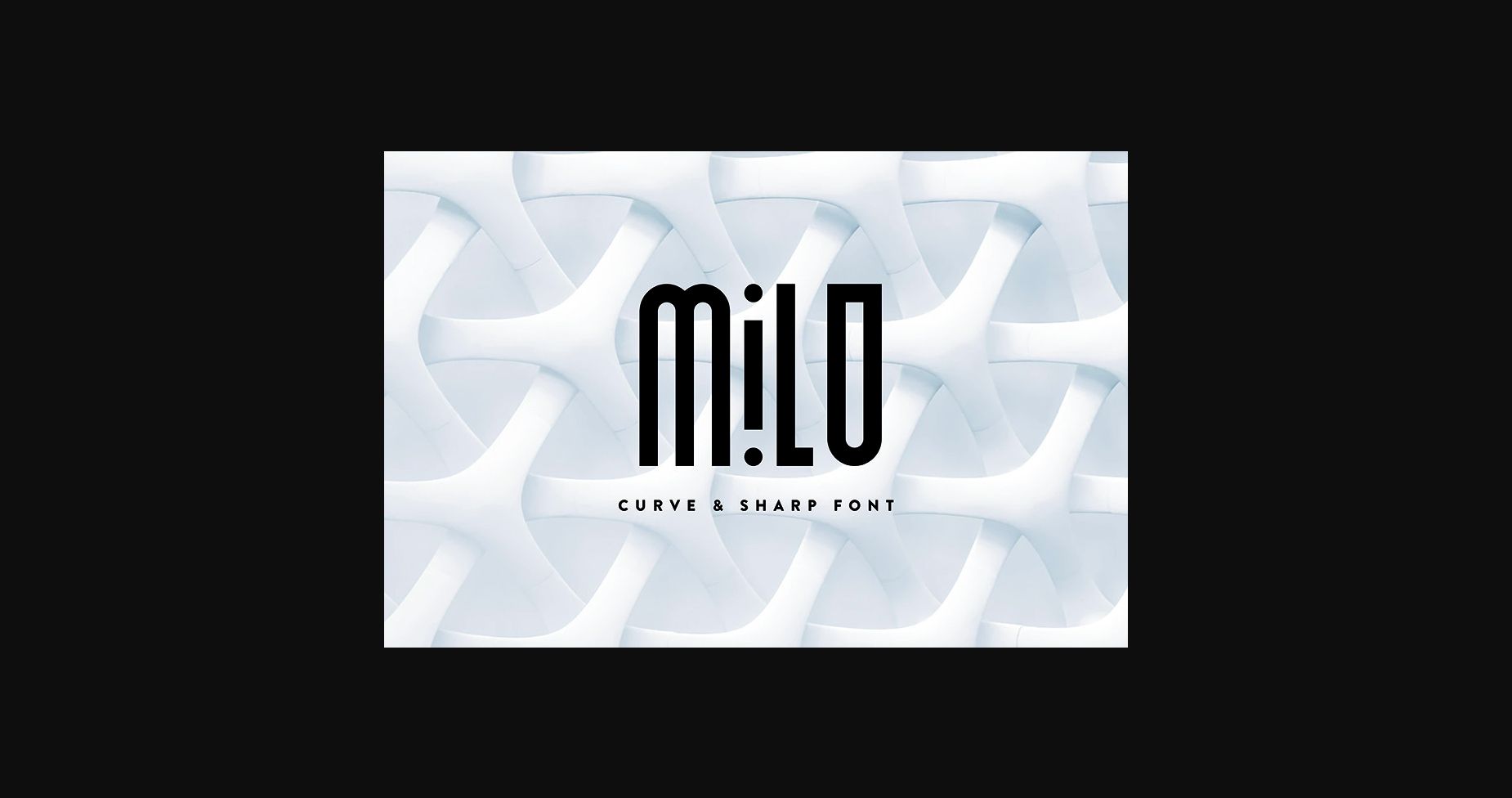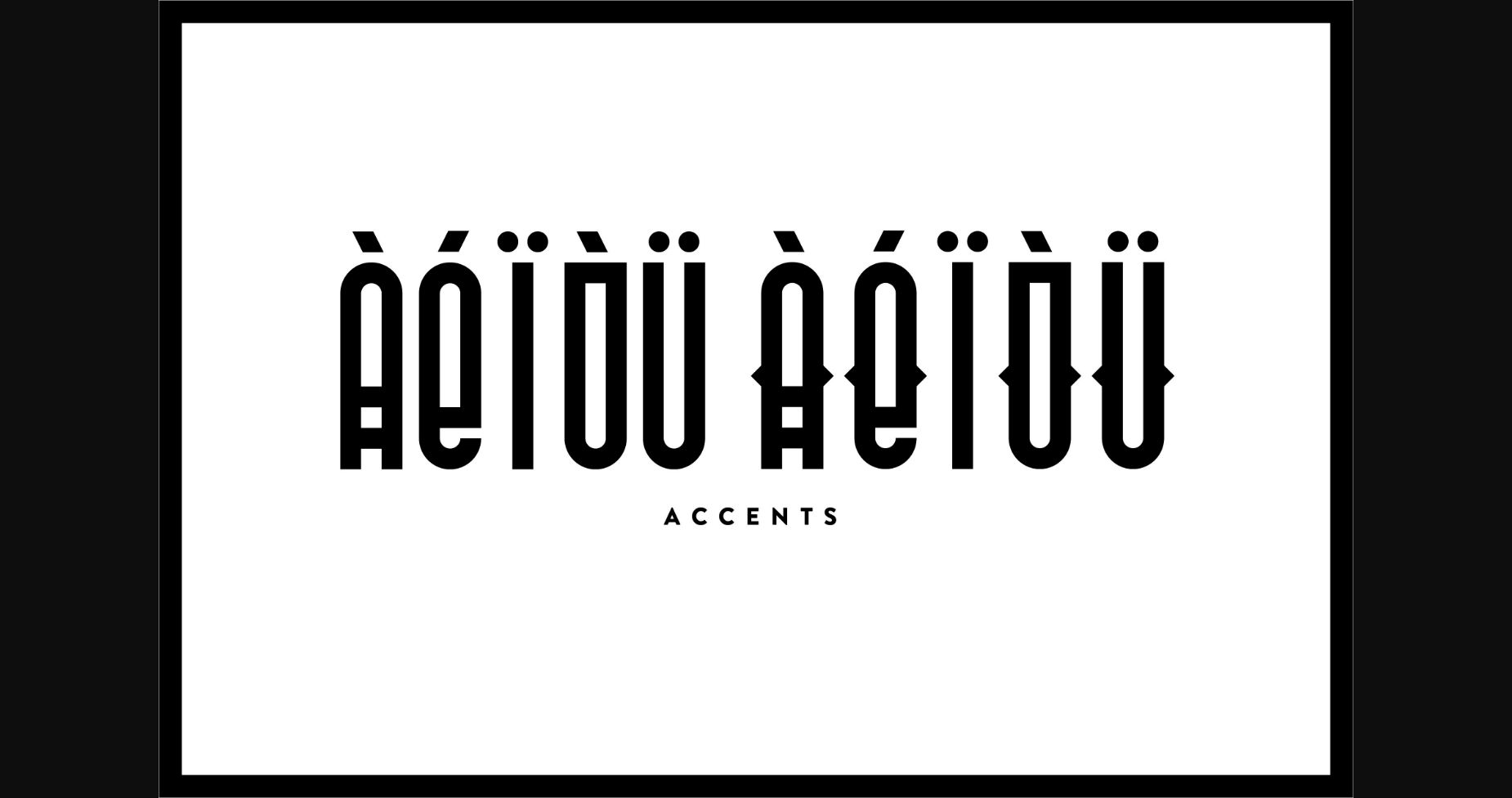
About Milo Font
Milo is a modern sans serif font. Featuring an almost gothic style, this font is here to impress! Use it for your most creative projects that need a mysterious touch! This font is PUA encoded which means you can access all of the glyphs and swashes with ease!